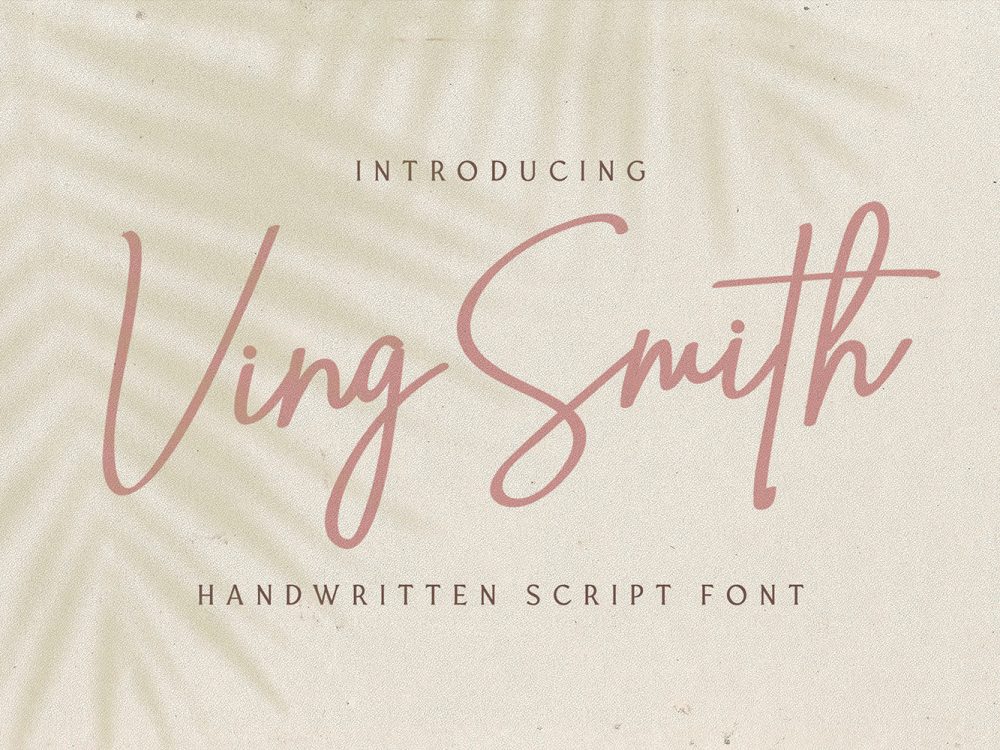
Ving Smith Free Font
Ving Smith Free Font s a stylish handwritten font that has an elegant calligraphic style. This font will help you create unique design projects and enhance your professional level. Use this font to create memorable posters, wedding invitations, cards, branding, flyers, and more. Improve the quality and increase the popularity of your design projects using this font. If you like it don’t forget to check out the full version.